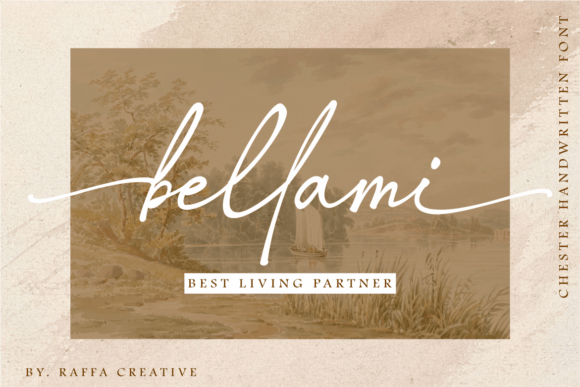
Introducing Chester Font: The Epitome of Modern Calligraphy
In the world of typography, few fonts manage to strike a balance between elegance and style. However, Chester font is one of the exceptions. This modern calligraphy font seamlessly blends sophistication with a stylish, handwritten feel, making it an ideal choice for a variety of design applications. From upscale branding to wedding invitations, packaging, and personal signatures, Chester font adds a touch of luxury and refinement to any design.
The Characteristics of Chester Font
Chester font is characterized by its graceful letterforms and flowing strokes. The font’s design is inspired by traditional calligraphy, but with a modern twist that gives it a fresh and stylish feel. The letters are crafted with precision and attention to detail, resulting in a font that exudes elegance and sophistication.
- Elegant Letterforms: Chester font features beautifully crafted letterforms that are both refined and stylish.
- Flowing Strokes: The font’s flowing strokes add a touch of dynamism and fluidity to any design.
- Modern Calligraphy: Chester font is inspired by traditional calligraphy, but with a modern twist that gives it a fresh and contemporary feel.
- Handwritten Feel: Despite its elegance, Chester font still retains a handwritten feel that makes it relatable and approachable.
Uses of Chester Font
Chester font is a versatile typeface that can be used in a variety of design applications. Its elegance and sophistication make it an ideal choice for:
- Upscale Branding: Chester font is perfect for luxury brands that want to convey a sense of sophistication and elegance.
- Wedding Invitations: The font’s romantic and elegant feel makes it an ideal choice for wedding invitations and other formal events.
- Packaging: Chester font can add a touch of luxury to product packaging, making it perfect for high-end brands.
- Personal Signatures: The font’s stylish and elegant feel makes it an excellent choice for personal signatures and logos.
The Benefits of Using Chester Font
Using Chester font in your designs can have several benefits. Some of the advantages of using this font include:
- Unique and Memorable: Chester font is a unique and memorable typeface that can help your brand stand out from the competition.
- Elegant and Sophisticated: The font’s elegance and sophistication can add a touch of luxury to any design.
- Versatile: Chester font is a versatile typeface that can be used in a variety of design applications.
- Easy to Read: Despite its elegance, Chester font is easy to read and understand, making it perfect for body text and headlines.
Tips for Using Chester Font Effectively
To get the most out of Chester font, here are some tips for using it effectively:
- Use it Sparingly: Chester font is a elegant and sophisticated typeface, so use it sparingly to avoid overwhelming the reader.
- Pair it with Other Fonts: Chester font can be paired with other fonts to create a unique and visually appealing design.
- Adjust the Size and Color: Experiment with different sizes and colors to find the perfect combination for your design.
- Use it for Headlines and Titles: Chester font is perfect for headlines and titles, where its elegance and sophistication can shine.
In conclusion, Chester font is a modern calligraphy typeface that blends elegance with a stylish, handwritten feel. Its graceful letterforms and flowing strokes make it perfect for upscale branding, wedding invitations, packaging, and personal signatures. With its chic and luxurious vibe, Chester font adds a touch of sophistication to any design. By following the tips outlined above, you can use Chester font effectively and create stunning designs that leave a lasting impression.